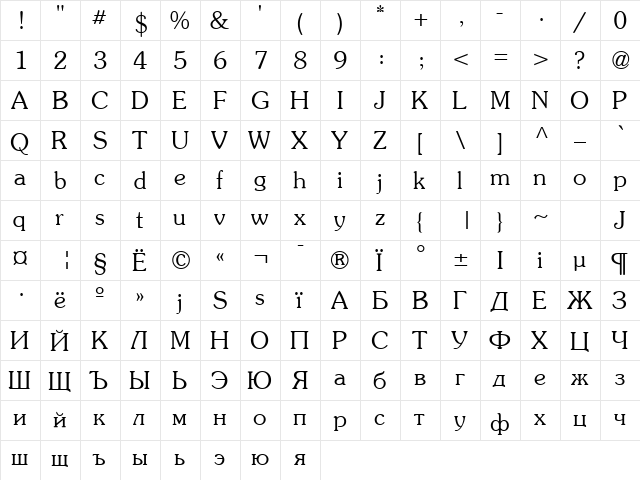
AGPresquire Normal
Design Context for AGPresquire Typeface
AGPresquire takes a measured approach to typography — its balanced proportions and neutral character make it a reliable workhorse for both digital and print work.